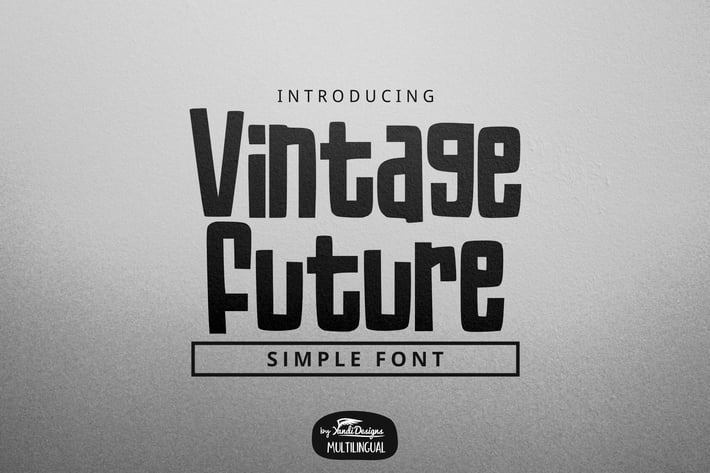
Vintage Future Font
Vintage Future Font is simple cute multipurpose handmade font, suitable for many project children book, quotes, logo , heading , title etc.
Basic Latin (Standard English character , number, symbol)
Multilingual Support (minimal English, French, Spanish, German, Italian, Indonesian, Malay)
Vintage Future Font is simple cute multipurpose handmade font, suitable for many project children book, quotes, logo , heading , title etc.
Basic Latin (Standard English character , number, symbol)
Multilingual Support (minimal English, French, Spanish, German, Italian, Indonesian, Malay)